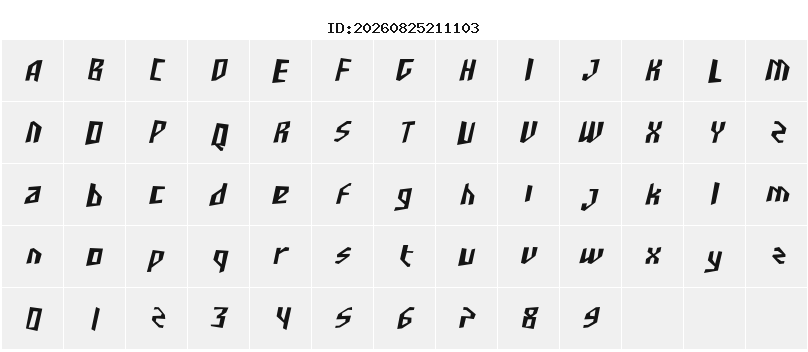
SF Junk Culture Condensed Preview
• Font Name: SF Junk Culture Condensed
• Font Style: Oblique
• Full Font Name: SF Junk Culture Condensed Oblique
• PostScript Name: SFJunkCultureCondensed-Oblique
About SF Junk Culture Condensed.ttf
SF Junk Culture Condensed.ttf is a modern, elegant sans-serif font designed for ultimate readability and visual harmony. Perfect for branding, headlines, web design, and print materials.